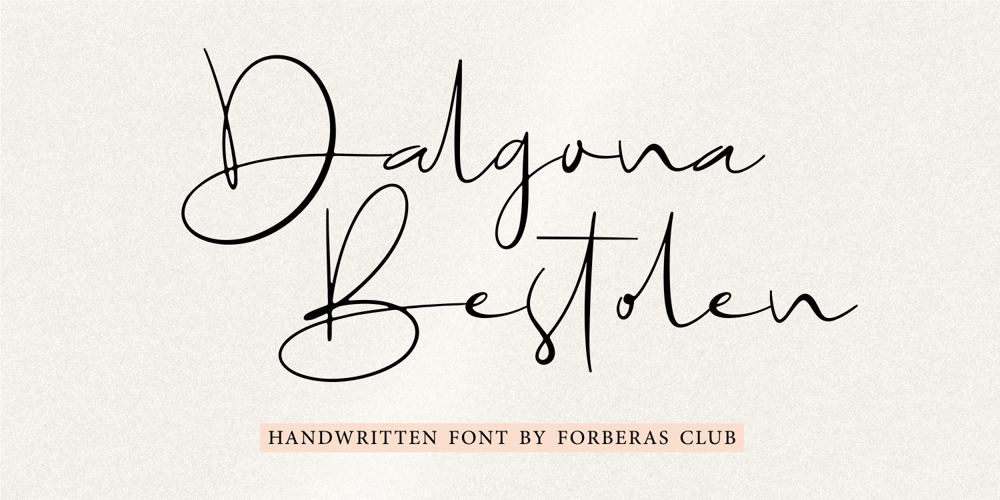
Dalgona Bestolen Font Family was designed by ANGGI HERMAWAN and published by Forberas Club. Dalgona Bestolen contains 1 styles and family package options. Introducing Dalgona Bestolen by Forberas ClubDalgona Bestolen is a Handwritten Script font that will make your designs look classic, Farmhouse, Boho, and Feminine. It is a great font for events, Wedding Project, fashion, apparel projects, signature, album covers, logos, branding, magazines, social media posts, advertisements, but it also works great for other projects. Add it to your fonts’ library, and it will enhance your creativity!Dalgona Bestolen is best for: – logos, branding, & Signatures. – Flyers, Album cover, Magazine, & Advertisements. – Website design , design blogs, & fashion. – Quote graphics for social media. – and also it works great for other projects.Whats included : – Character Set – Numerals and Punctuation (OpenType Standard) – Accents (Multilingual characters)If you have any questions, before or after purchase, please feel free to get in touch.